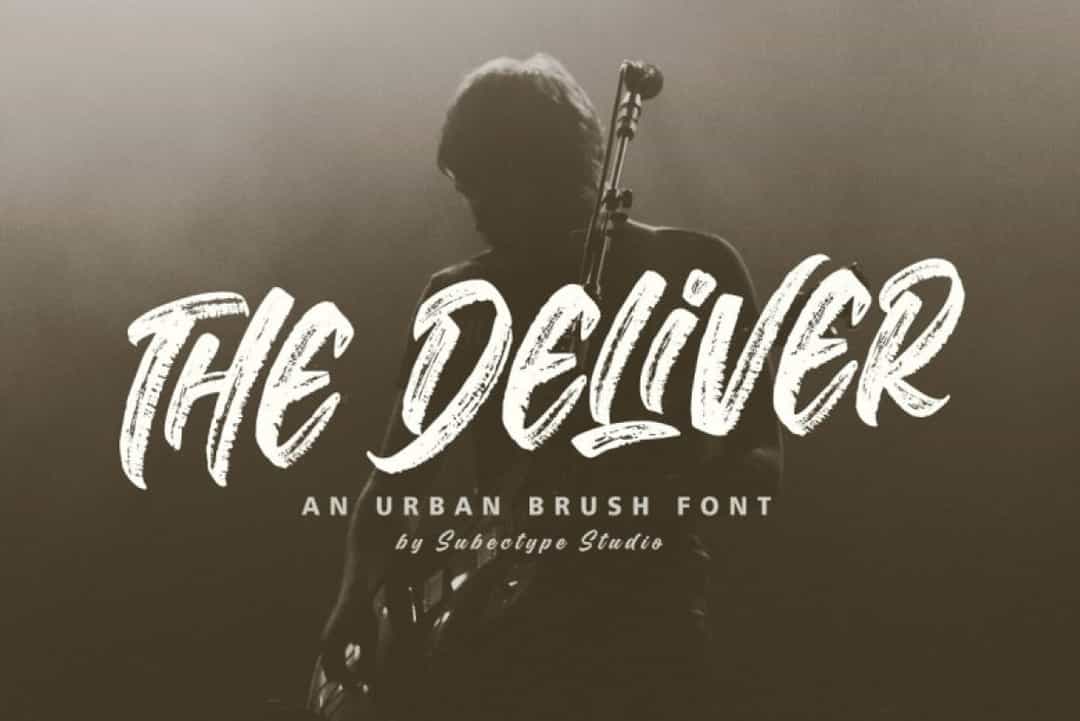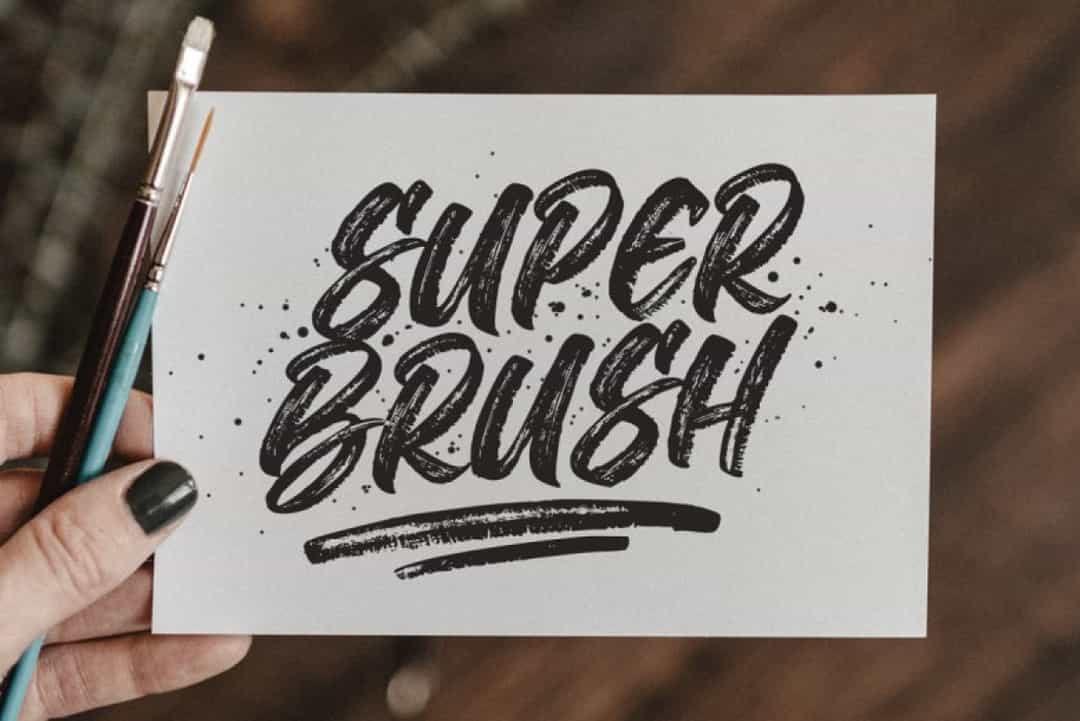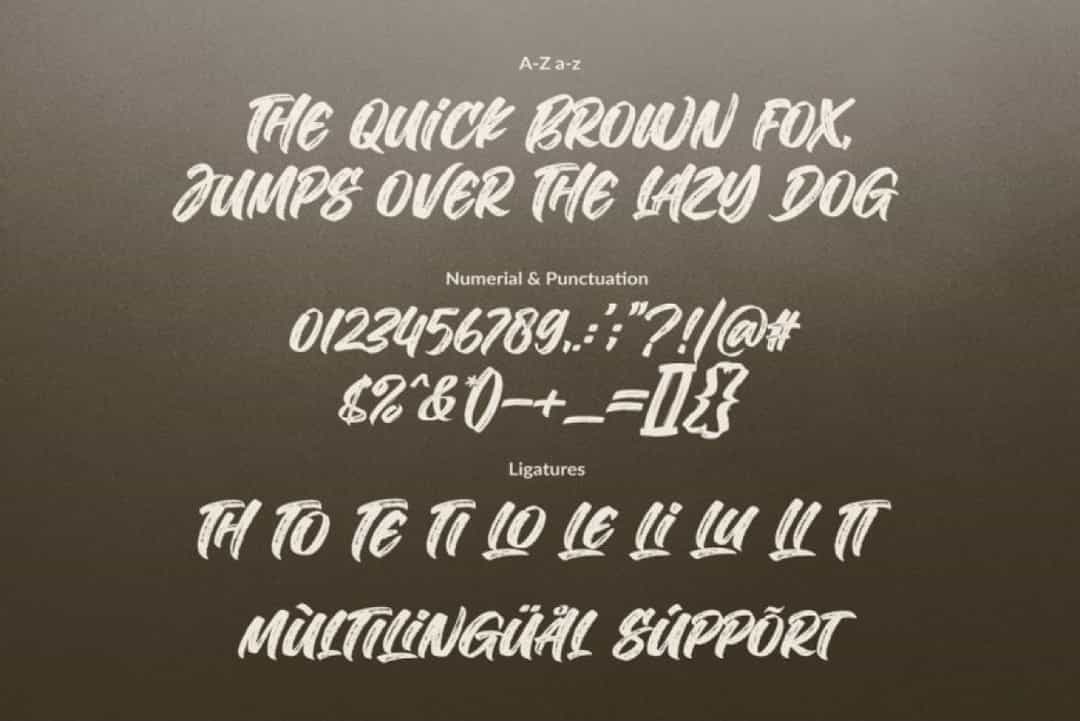
The Deliver Brush Font is an urban script type with natural hand-painted styles that is well suited to all kinds of design applications ranging from urban design, branding, modern advertising book/cover title special events adventures headlines as well as any other brush lettering requirements and more.